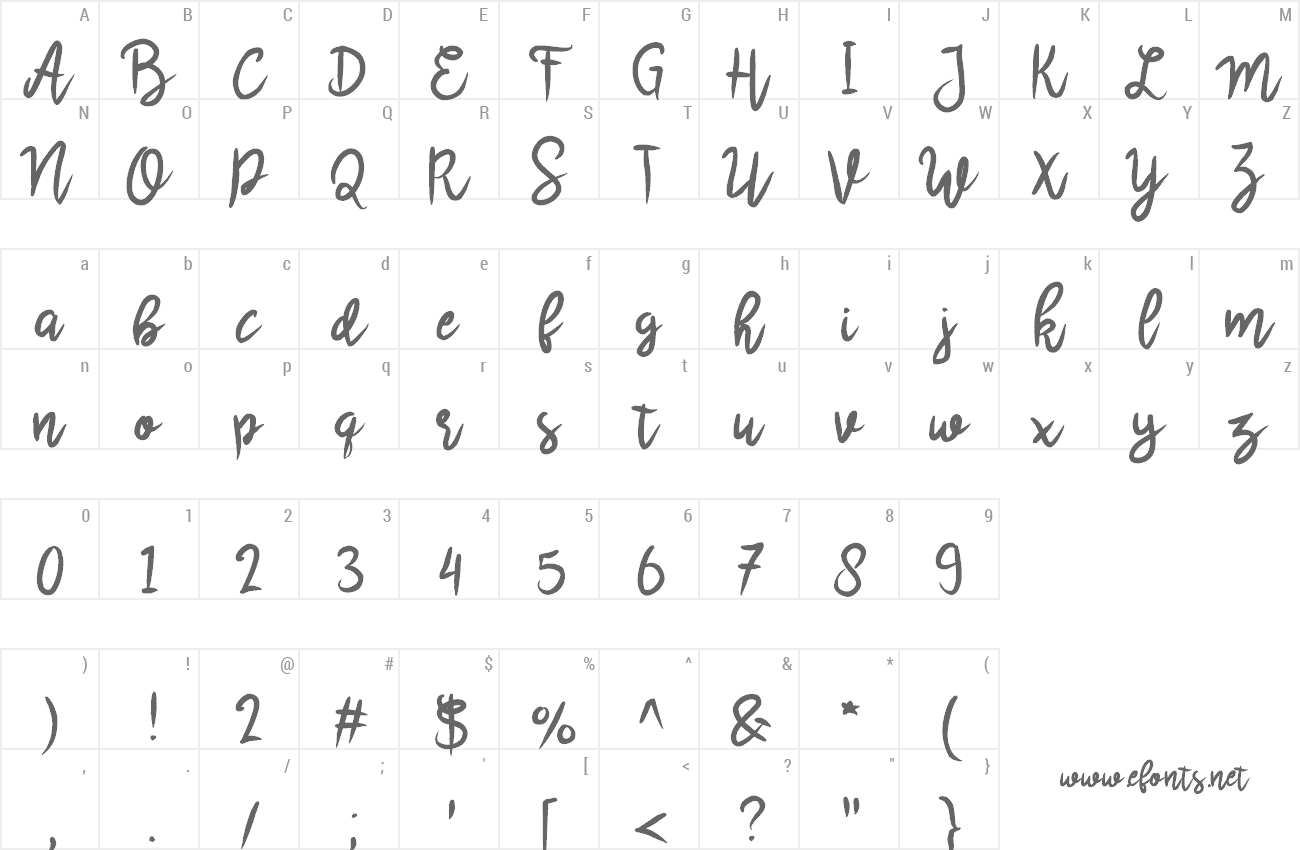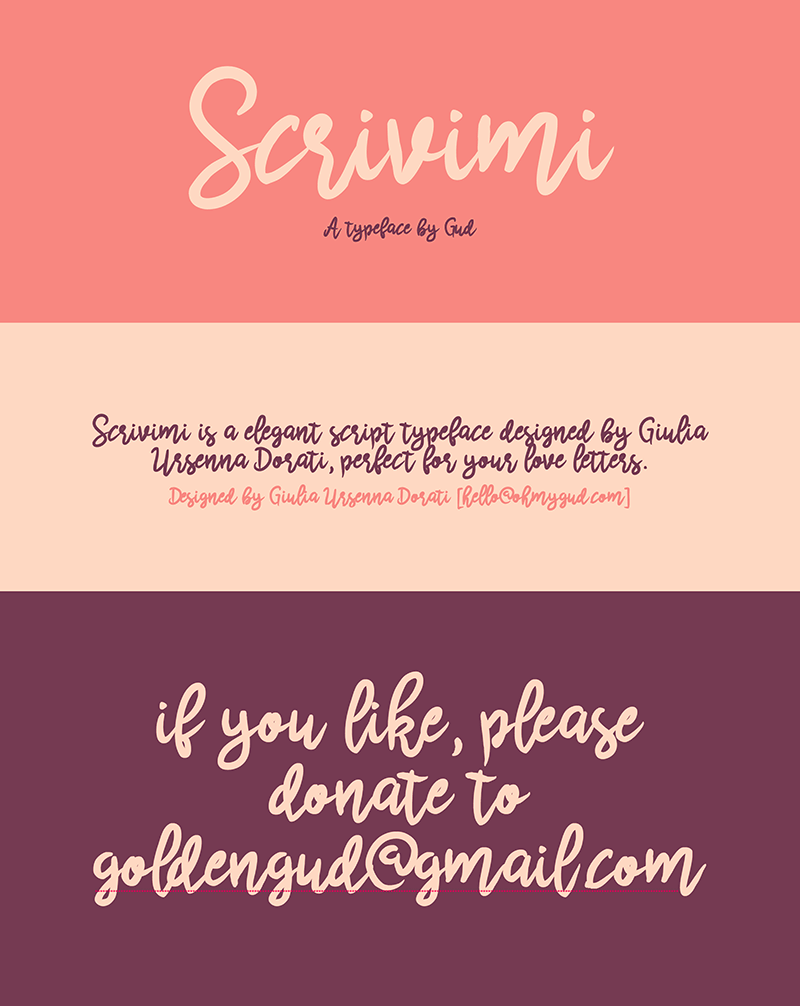
Scrivimi is a elegant script typeface designed by Giulia Ursenna Dorati, perfect for your love letters. Designed by Giulia Ursenna Dorati [hello@ohmygud.com] If you like, please donate to goldengud@gmail.com Download the license and the complete font here http://www.revolge.com/product/scrivimi/ |